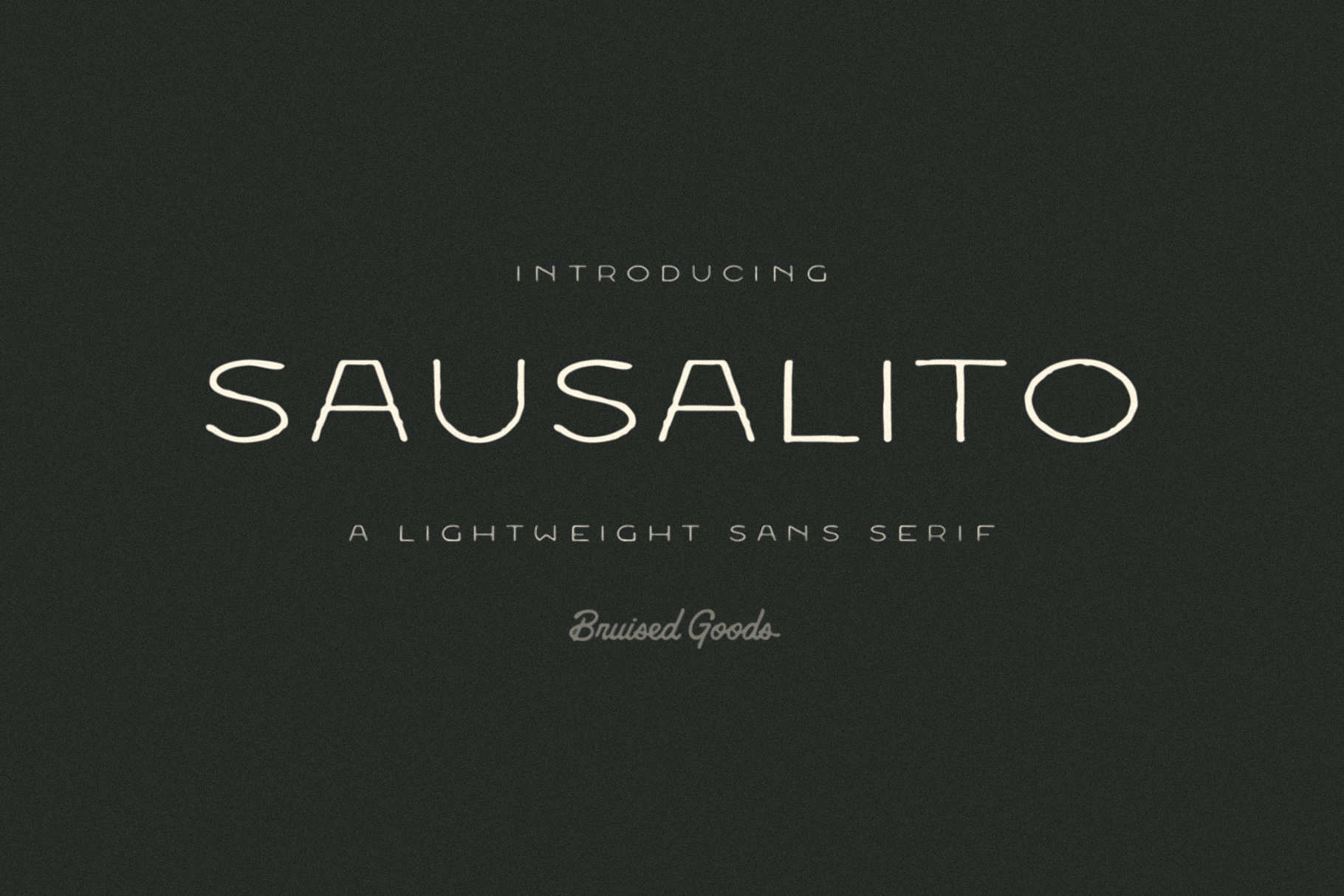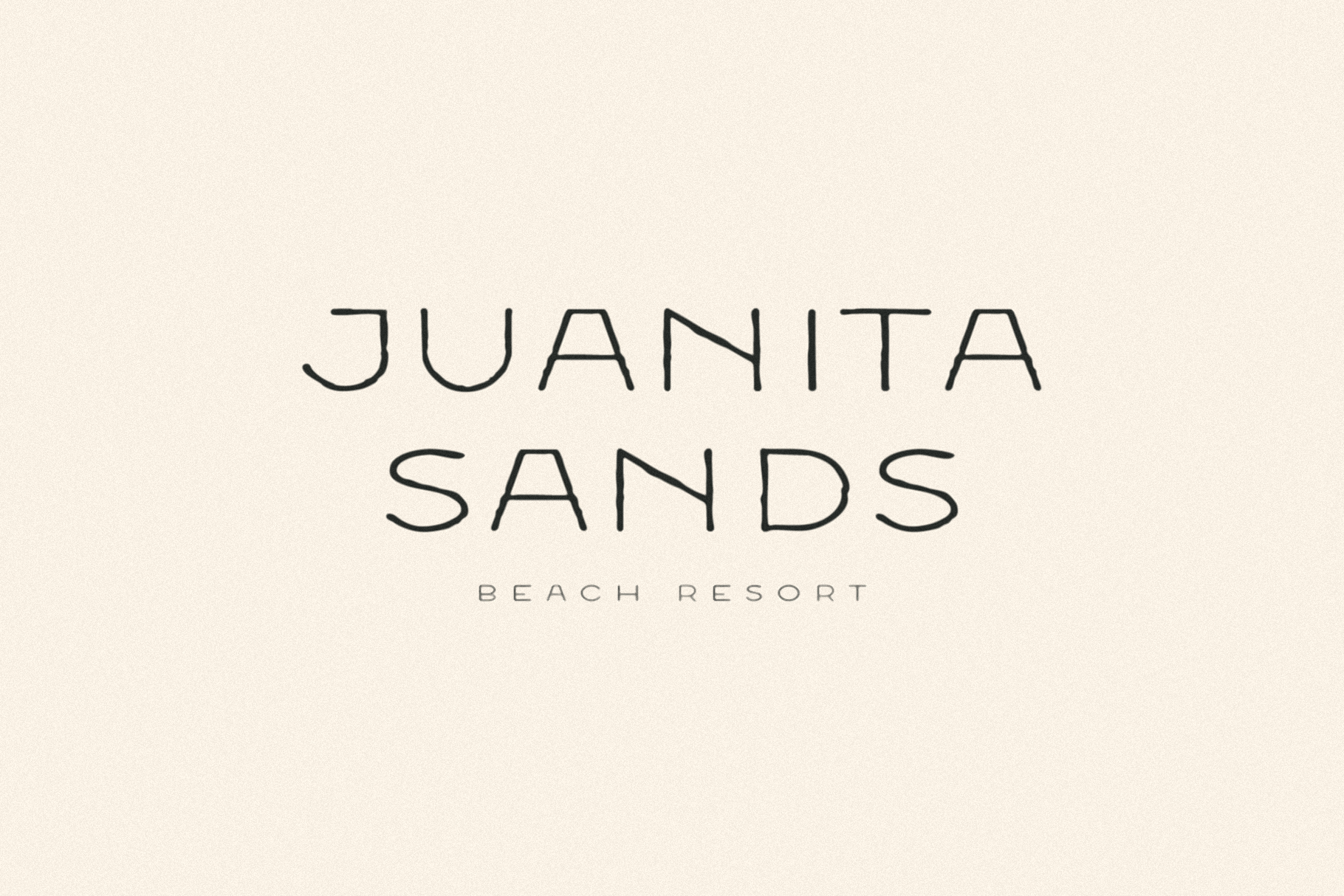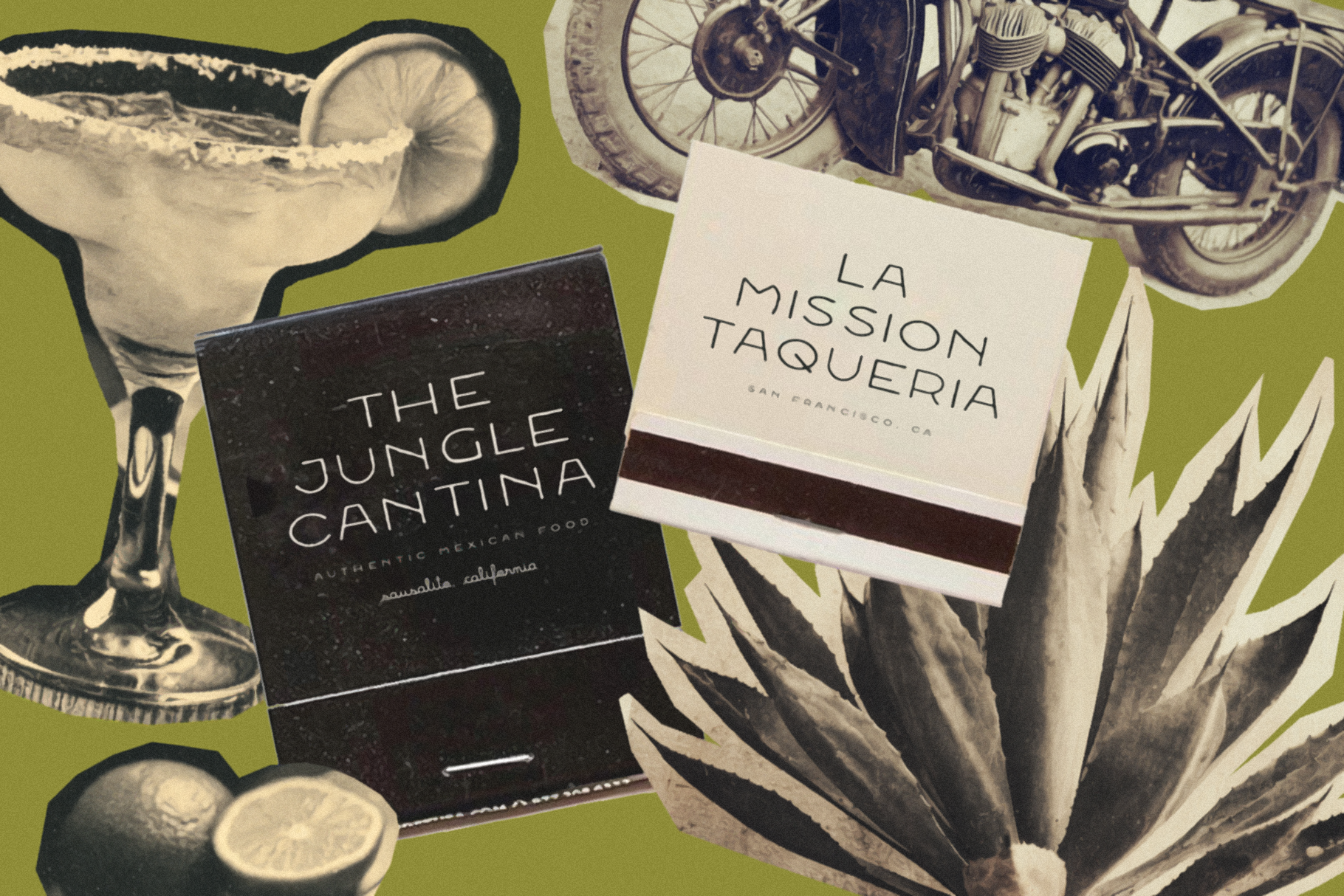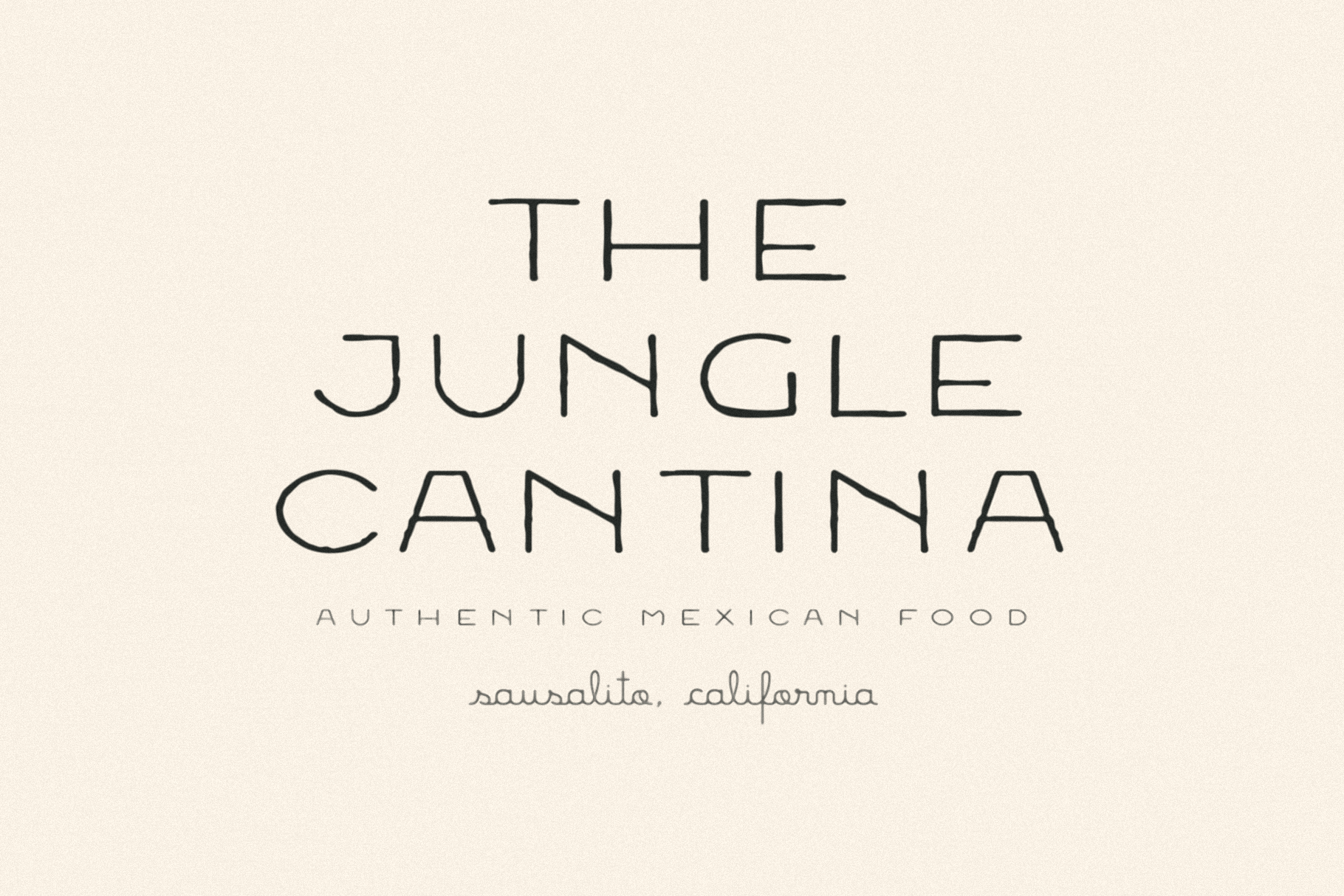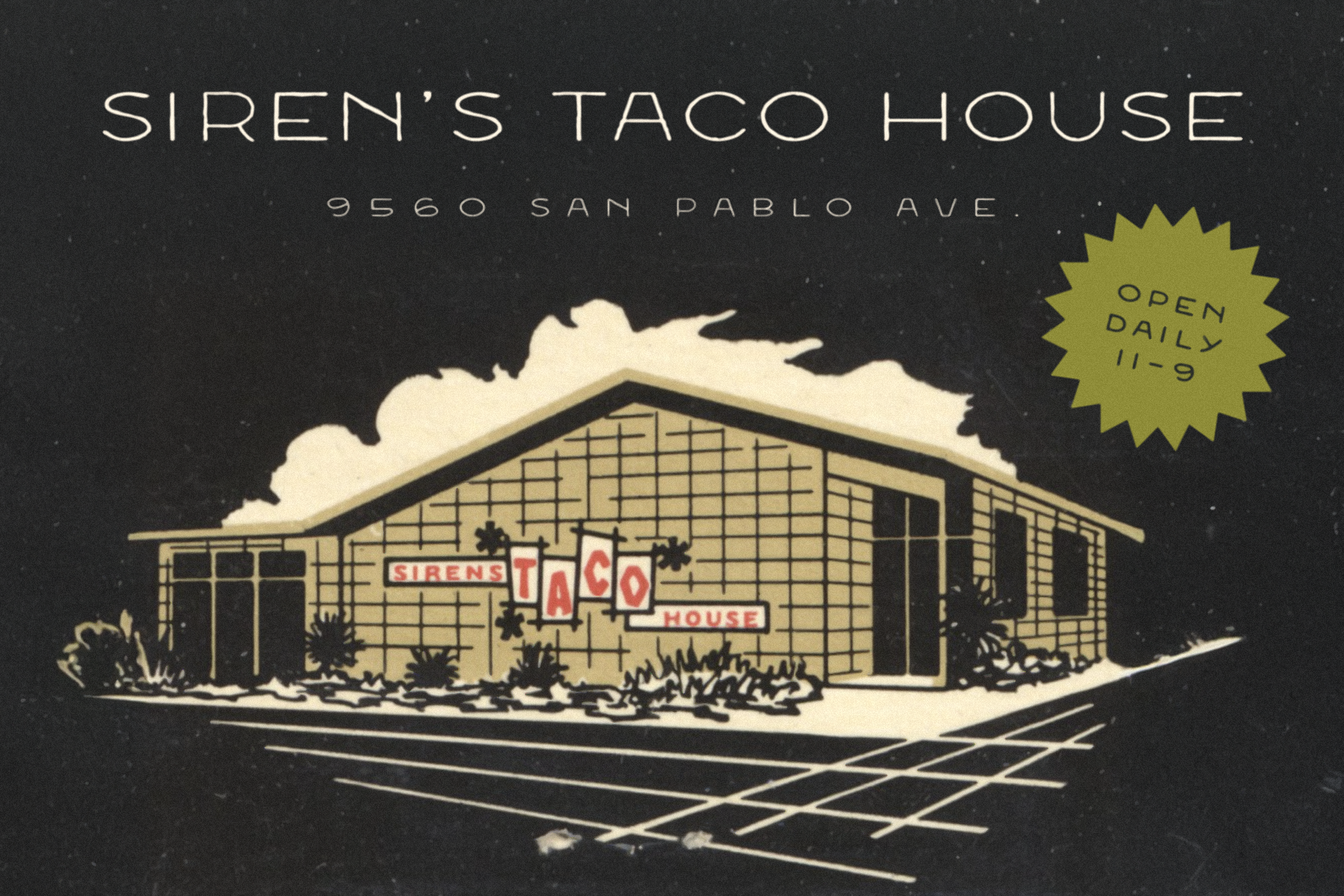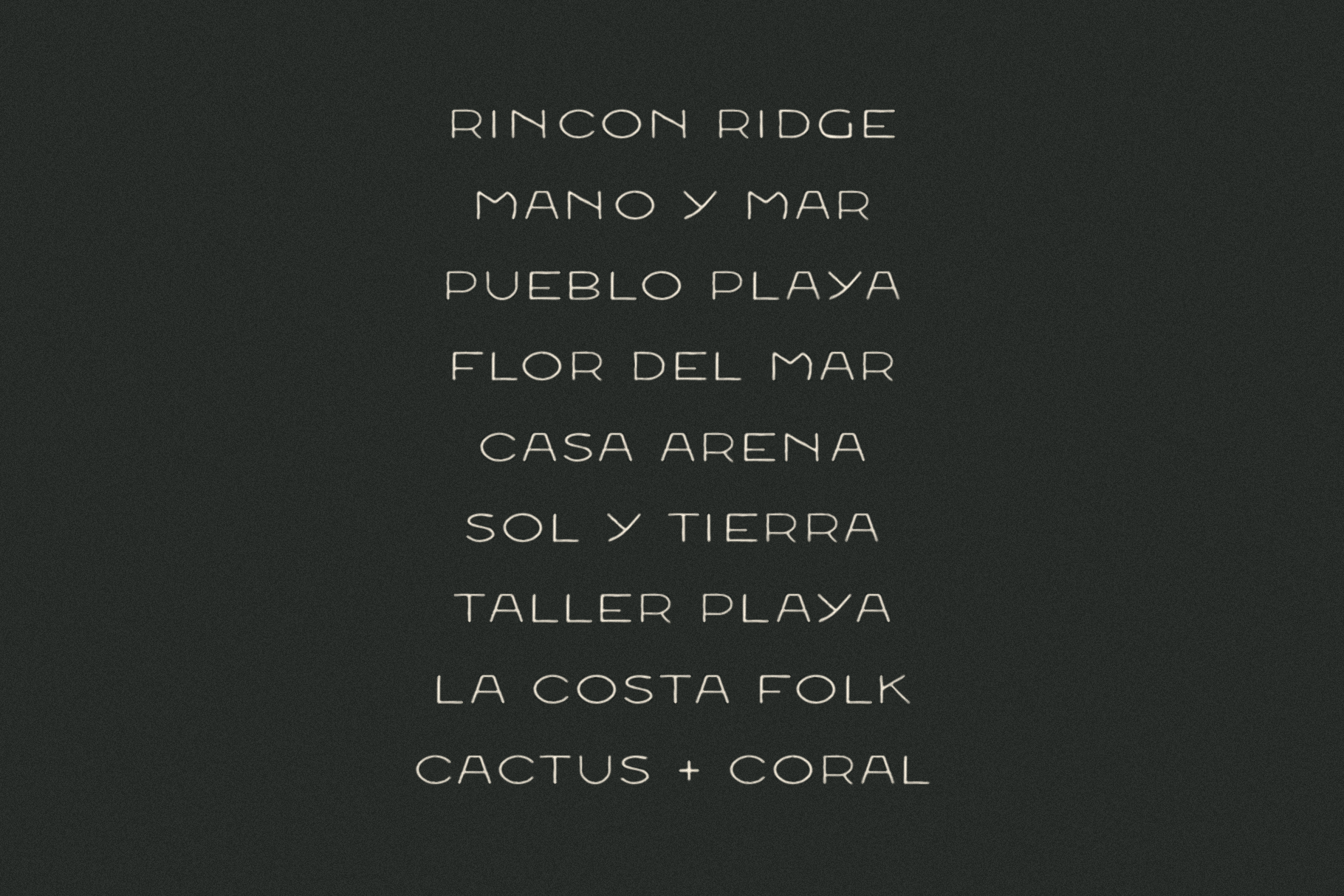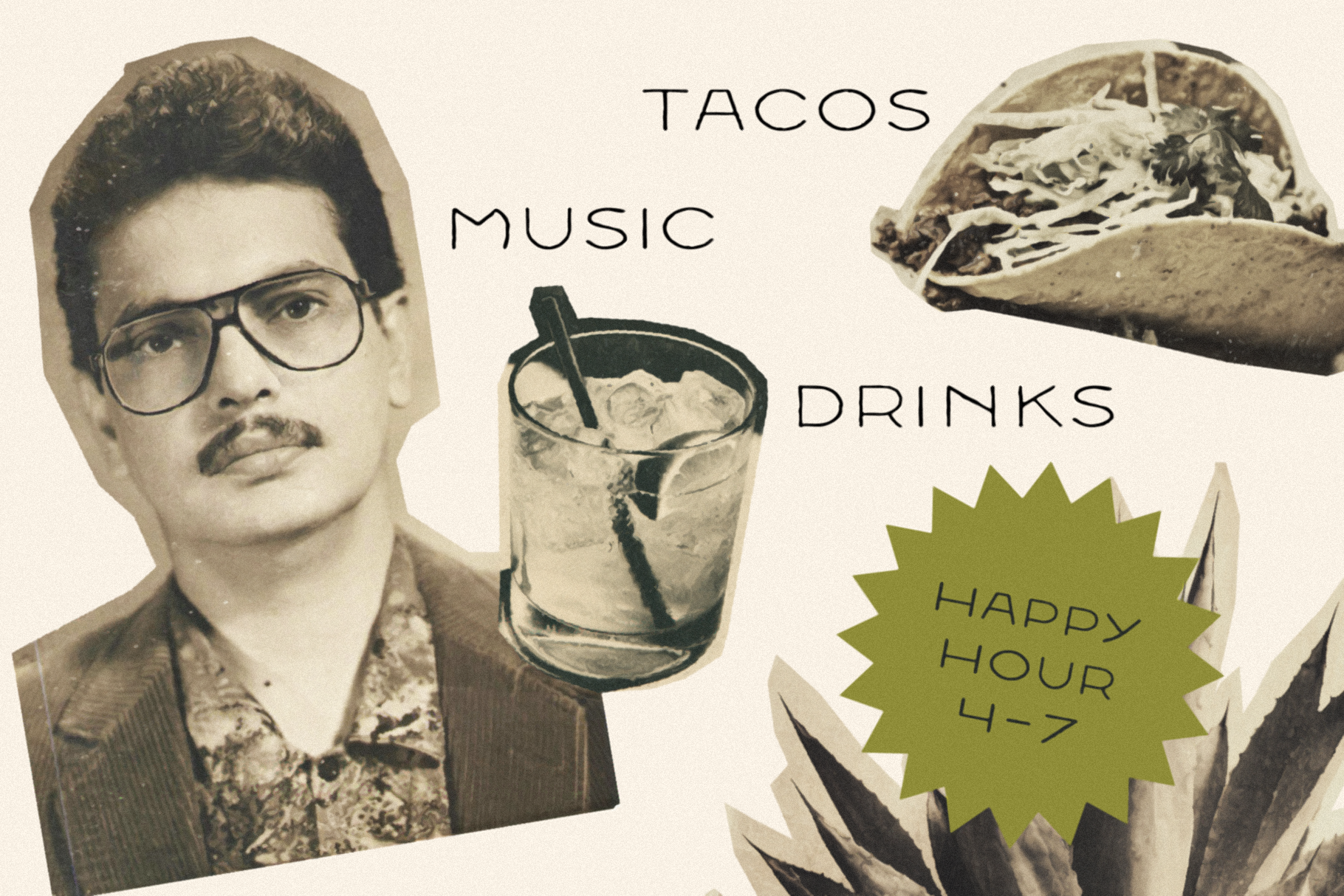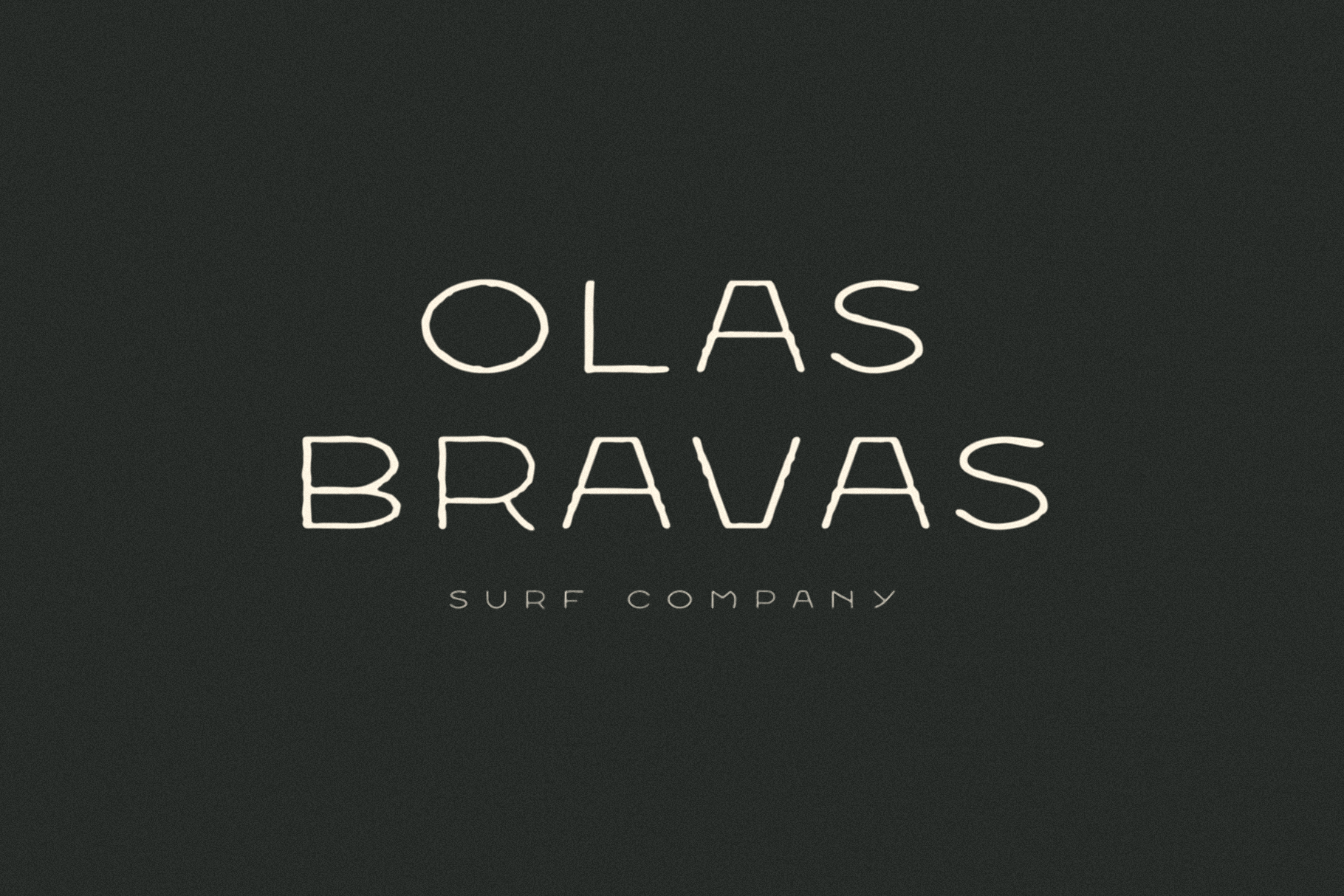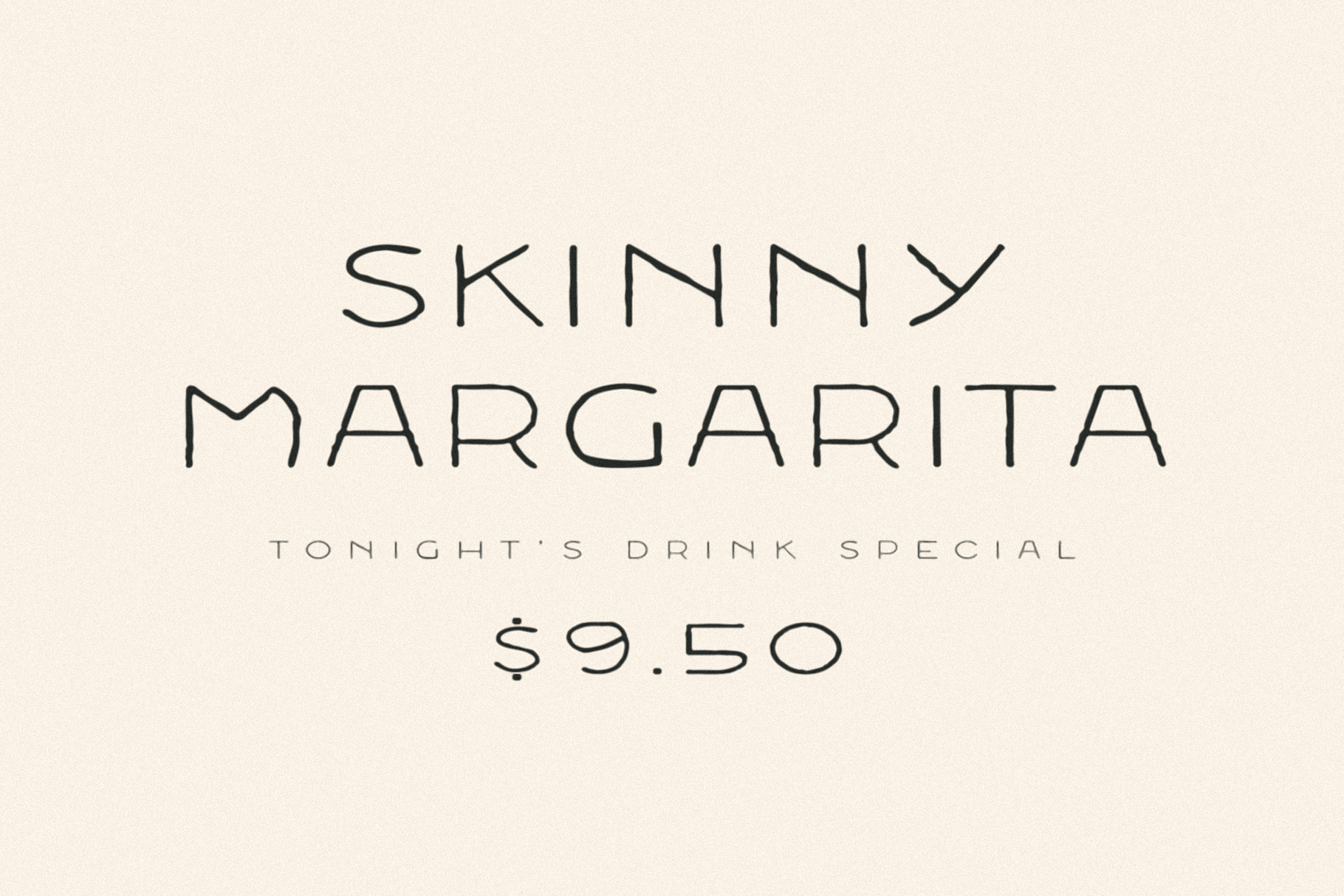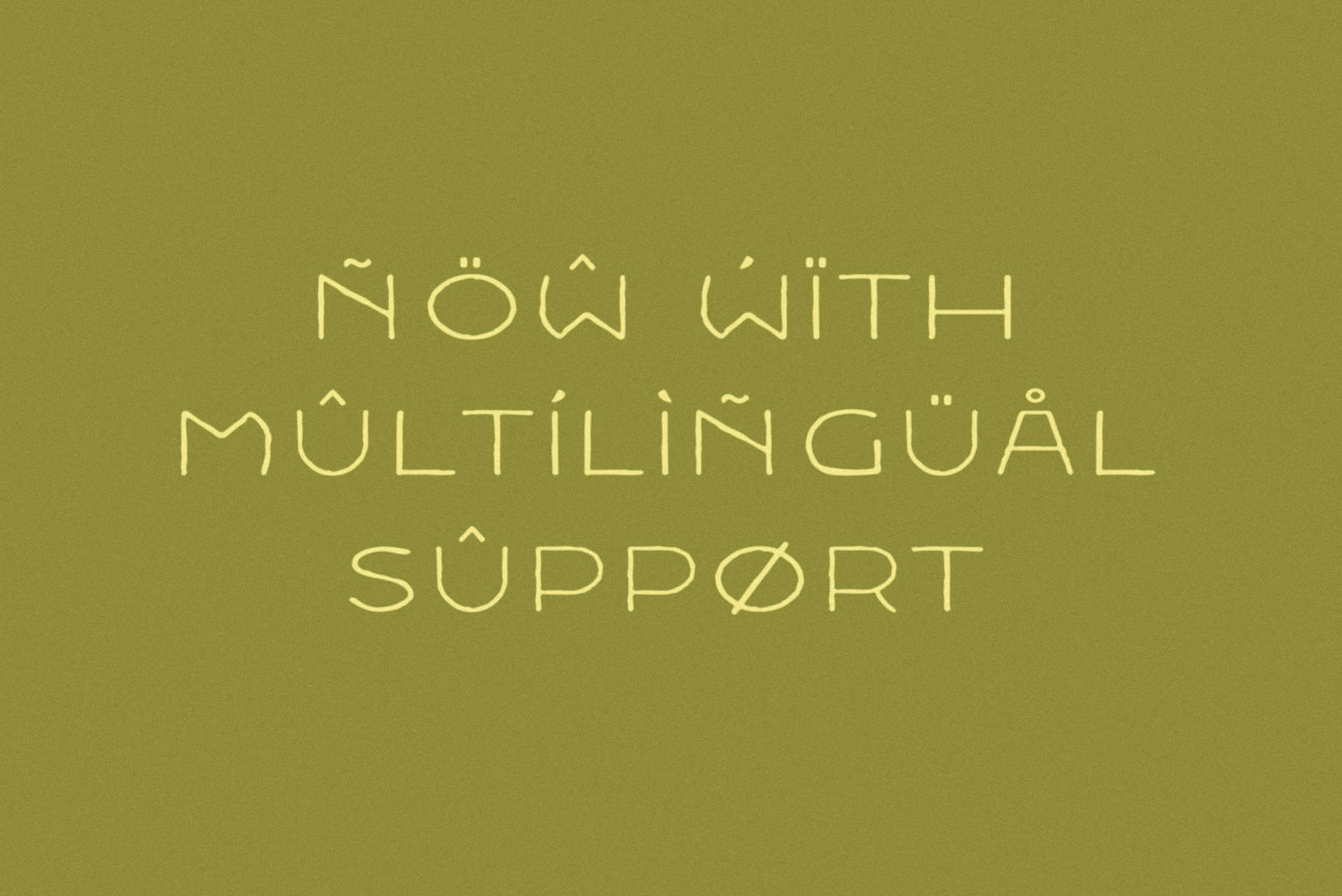
Sausalito
SAUSALITO – A lightweight sans serif, inspired by the hand-painted signs of Mexico and California.
138 Glyphs Total: Uppercase and Lowercase Characters, Numbers, Symbols, and Punctuation. Language Support: Danish, English, French, German, Irish, Italian, Portuguese, Spanish, Swedish, and Swiss German.